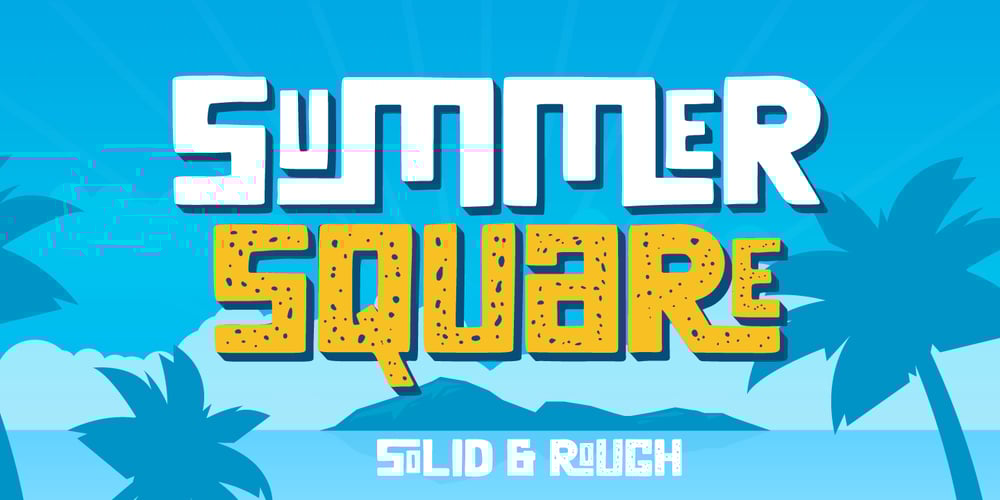
Summer Square Font Family was designed by Fadli Ramadhan Iskandar and published by Attype Studio. Summer Square contains 2 styles and family package options. Summer Square is vintage all caps font with 2 styles clean & rough. Summer Square is a strong font, this font is perfect for branding, logo, invitation, stationery, social media post, product packaging, merchandise, blog design, game titles, retro style design, Book/Cover Title and more.This font features Multilingual Support (Afrikaans, Albanian, Catalan, Danish, Dutch, English, Estonian, Finnish, French, German, Icelandic, Italian, Norwegian, Portugese, Spanisch, Swedish, Zulu) and includes 62 ligatures.